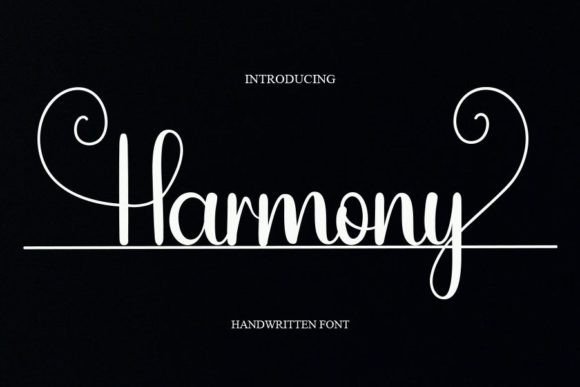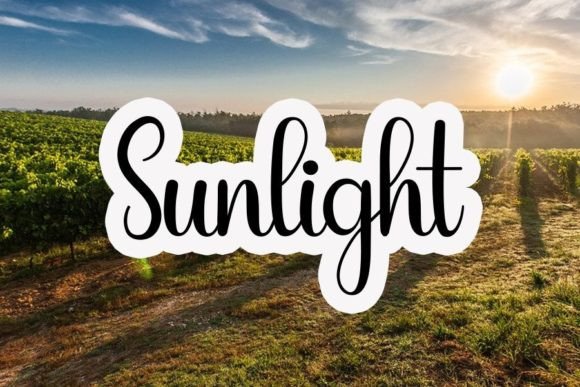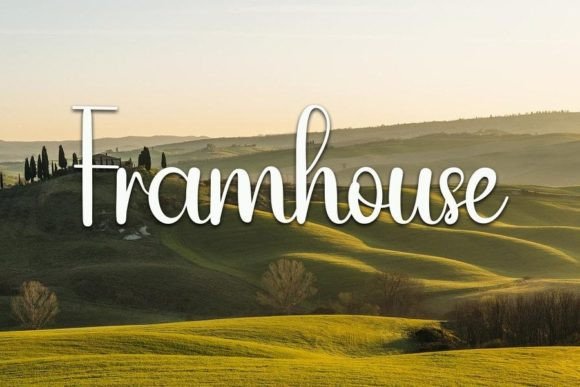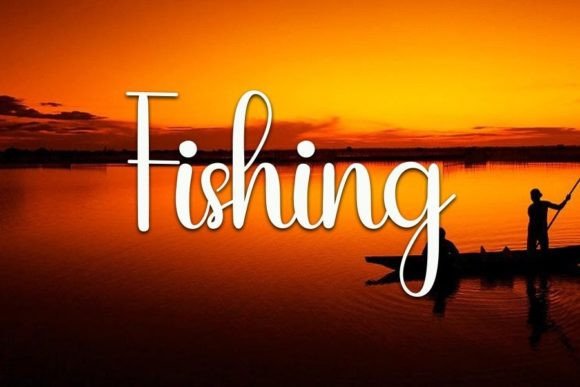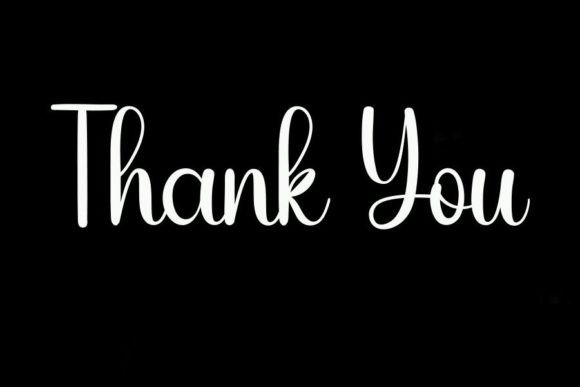
Harmony Font
About Harmony Font
“Harmony” is a simple handwritten font that brings a versatile and natural feel to your creative projects. With its simplicity, this font is well-suited for a wide spectrum of applications, ranging from greeting cards to headlines. It is crafted to add a simple and natural touch to your next project.
The versatility of “Harmony” makes it a valuable asset for various design contexts. Imagine using it on greeting cards, where its simple handwritten style adds a personal and heartfelt touch to your messages. Picture it as a headline font, enhancing the overall readability and visual appeal of your designs.
As a simple and natural font, “Harmony” seamlessly integrates into different design applications. Its clean and straightforward design makes it suitable for a range of creative endeavors, providing a timeless and approachable aesthetic.
Whether you’re working on digital graphics, print materials, or any other design project, “Harmony” invites you to explore its simplicity and versatility. It becomes a reliable choice for conveying a natural and straightforward feel in your designs, ensuring that your projects stand out with a touch of simplicity and authenticity.